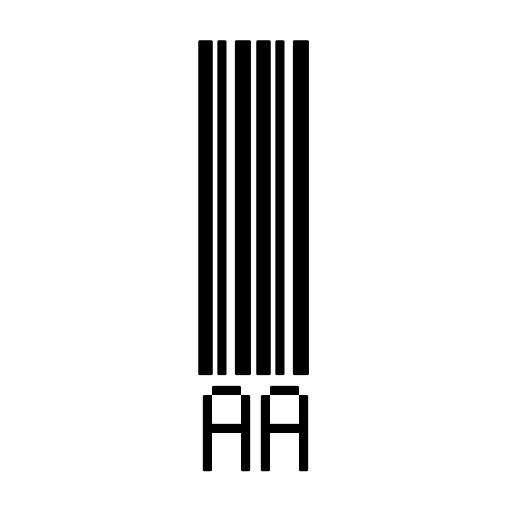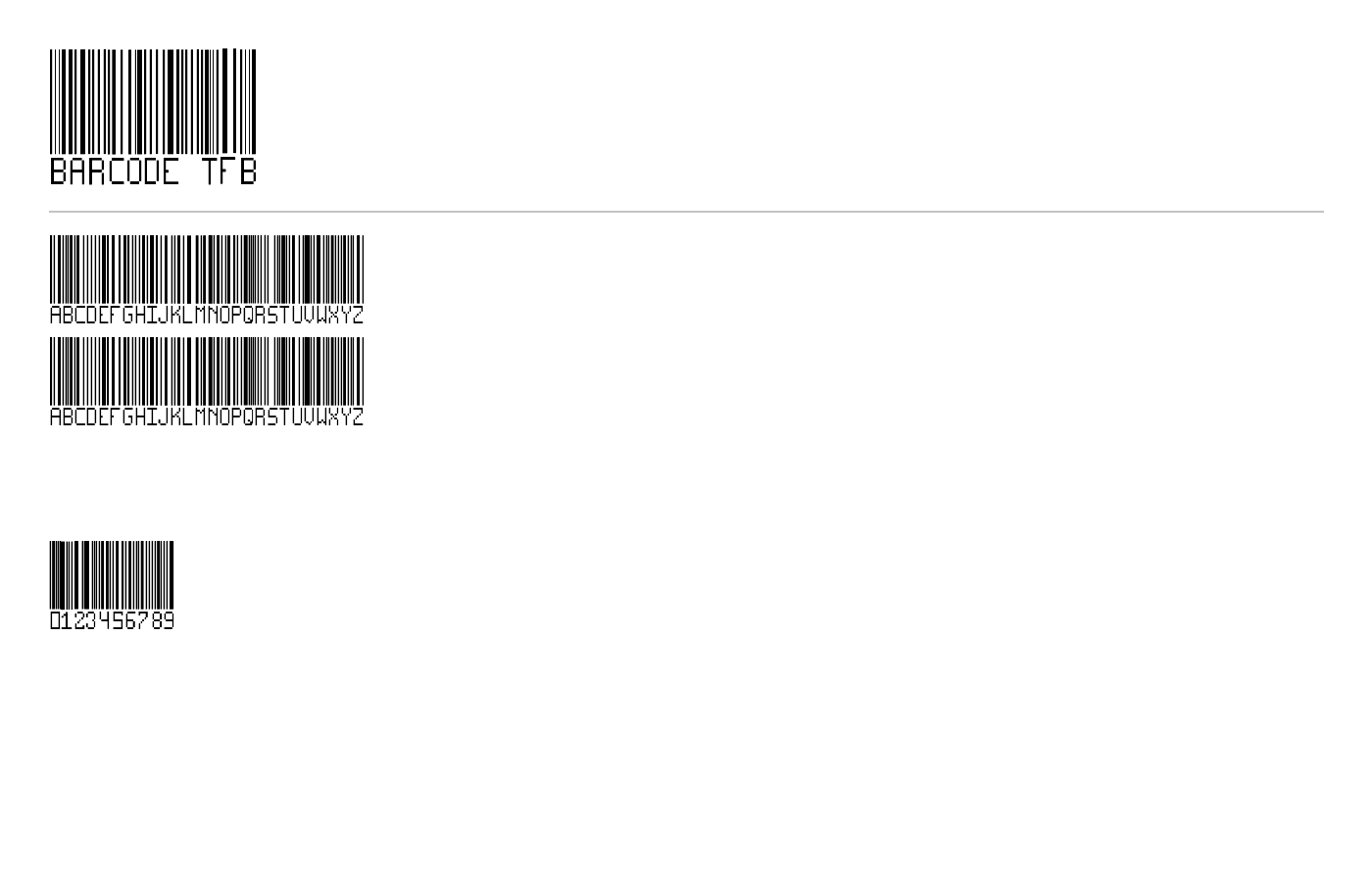
BARCODE TFB is a unique, modern sans serif font that mimics the appearance of barcodes with tall, narrow letterforms and minimal stroke contrast. Its clean, geometric style and compact spacing give it a technical, futuristic feel, making it ideal for creative projects related to technology, data, or modern branding. This font works especially well for logos, headlines, and packaging where a distinctive, industrial look is desired.
BARCODE TFB Font
About BARCODE TFB Font